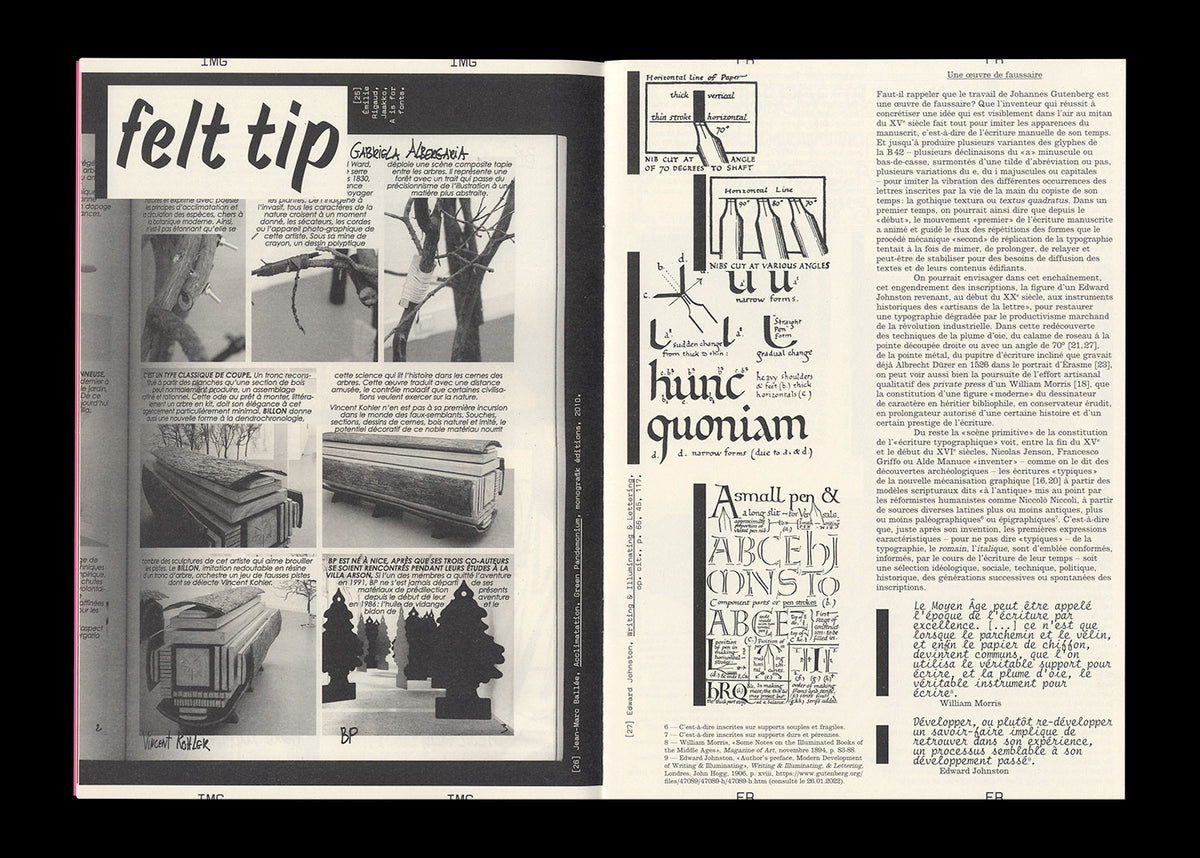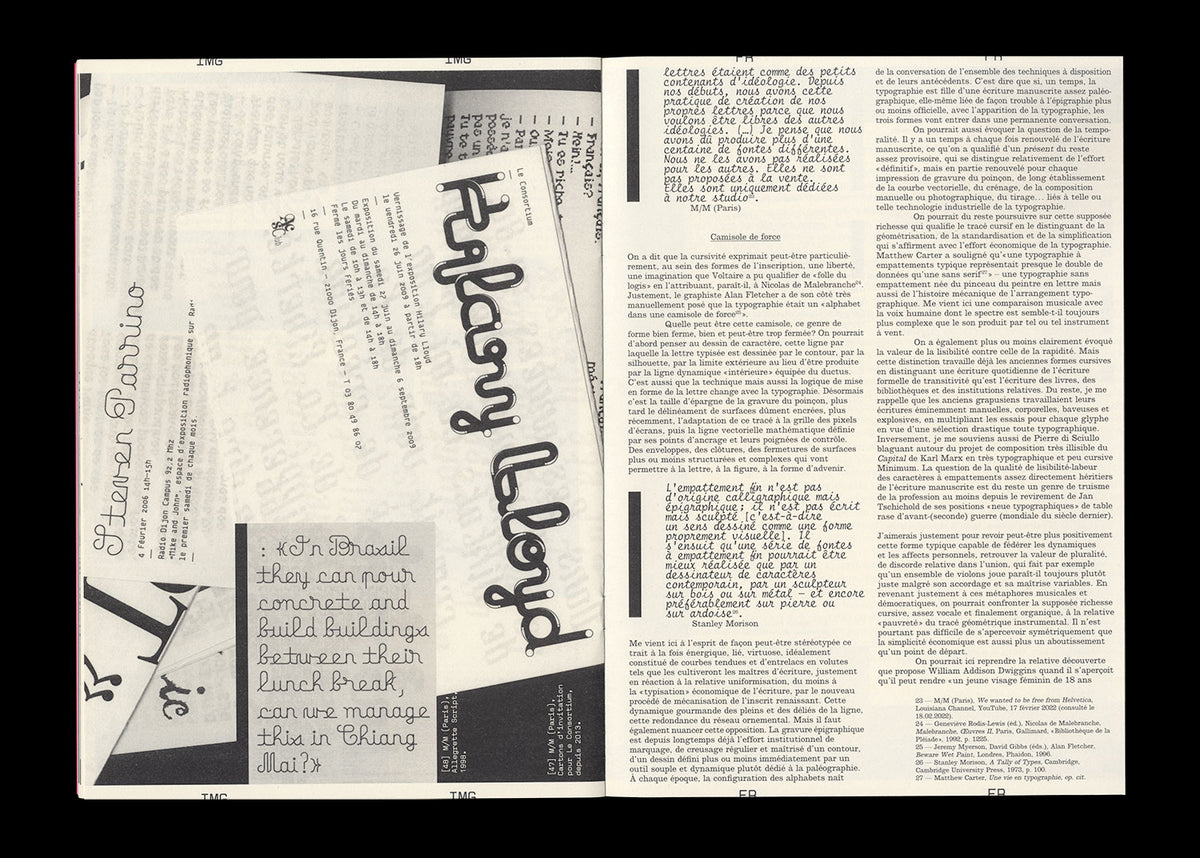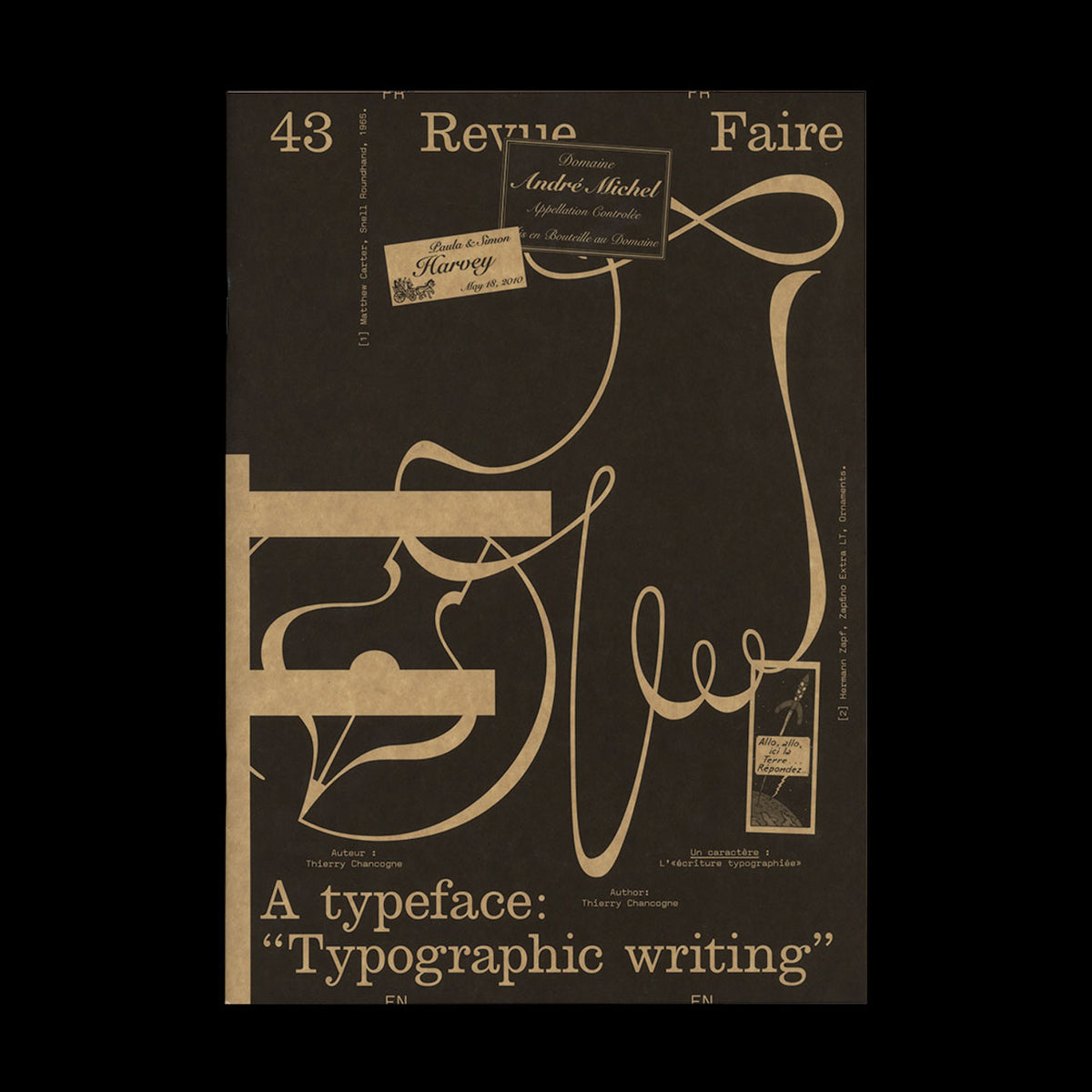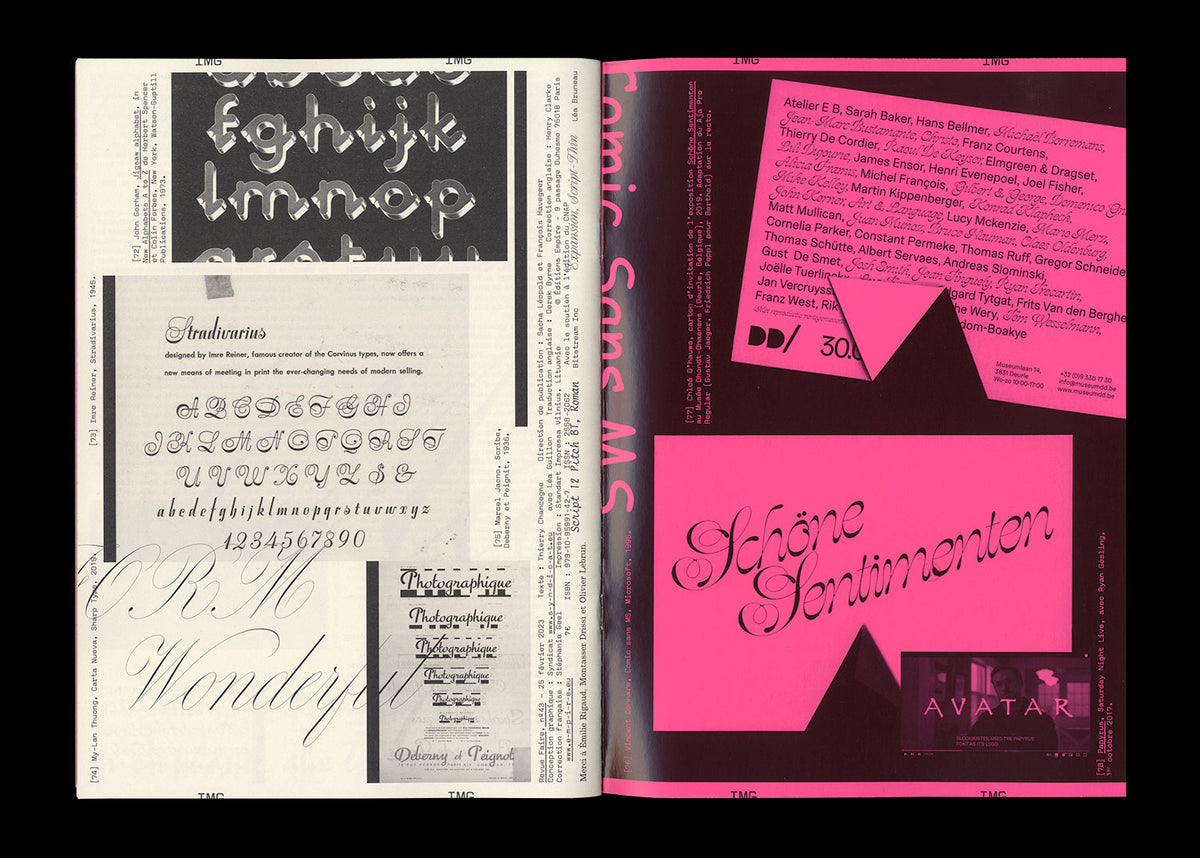
REVUE FAIRE 43 — A TYPEFACE: “TYPOGRAPHIC WRITING” by Thierry Chancogne
In 1920, Francis Thibaudeau dedicated his manual of modern typography, La Lettre d’imprimerie, to Auriol, a letterer and typographer from the beginning of the century, whom he described as “the innovator of typographic writing.” The book is set using multiple variants of Auriol’s striking typefaces—notably the outline font Auriol-champlevé, the stencil Auriol labeur, the narrow Française Légère, and the bold Robur Noir.
And it should be noted that perhaps the most widespread of these alphabets, Auriol labeur, is a typeface which defends both the pictorial dynamics of its components, visibly brushed with an august gesture, as well as the more-or-less industrial technicality of the bridges of this stencil typeface. One could be quite rightly struck by the oxymoron of so-called “typographic writing.”
How does writing, along with its contingent, situated, and personal dynamics function in conjunction with the industrial and normative generalization of typography? Can a typeface, an abstract ideal, an orthographic contract, act upon historical movements and the specific and constantly renewed inclusion of alphabets? What happens to cursiveness when it is somehow “reclaimed” by the relatively definitive, or at the very least perennial, form of fonts?
Revue Faire n°43 — A typeface: “Typographic writing”
Thierry Chancogne